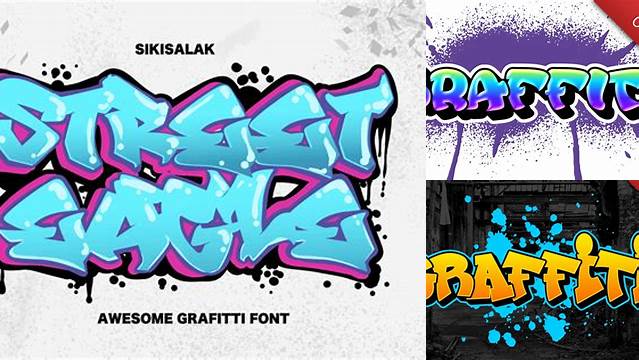
Graffiti Fonts Generator: Free Downloads & Creative Designs
Hey guys! Ever wanted to add some serious street cred to your designs? Well, you've come to the right place! Let's dive into the awesome world of graffiti fonts generator free download. We're talking about how you can snag some killer fonts to make your projects pop, whether you're a seasoned designer or just starting out. Get ready to unleash your inner artist!
1. What is a Graffiti Font Generator?
So, what exactly is a graffiti font generator? Think of it as your digital graffiti playground. These tools allow you to create text in a style that mimics the bold, edgy look of street art. The best part? Many of these generators offer graffiti fonts generator free download options, meaning you can experiment without breaking the bank. You can typically customize the font style, size, color, and even add effects like shadows and outlines to make your text truly stand out. The real magic of using a graffiti font generator lies in its ability to transform ordinary text into something visually striking and attention-grabbing. Imagine turning a simple headline into a vibrant piece of art, instantly capturing the essence of urban creativity. Whether you're designing a poster, a logo, or just want to spice up your social media graphics, these generators provide a quick and easy way to achieve that authentic graffiti look. The appeal extends beyond just aesthetics; it’s about the attitude and energy that graffiti fonts bring to a design, making it feel more dynamic and rebellious. For those who love the expressive nature of street art, having access to a graffiti font generator is like having a virtual can of spray paint, ready to make a bold statement with every word.
2. Benefits of Using Graffiti Fonts
Why should you even bother with graffiti fonts? Well, they're not just cool to look at. They bring a raw, urban edge to your designs. Graffiti fonts are fantastic for grabbing attention, conveying a sense of rebellion, and adding a unique flair to any project. Imagine using a bold graffiti font on a poster for a music event – it instantly sets the tone and attracts the right crowd. Or think about incorporating a graffiti-style logo for a skateboarding brand; it perfectly aligns with the brand's identity and vibe. One of the biggest benefits is their versatility. While they’re often associated with urban and youth culture, graffiti fonts can be used in a wide range of contexts. They can add a touch of edginess to a tech startup's branding or bring a playful twist to a children’s book cover. Plus, with the availability of graffiti fonts generator free download options, it’s easier than ever to experiment and find the perfect font for your specific needs. They help in creating visuals that are memorable and stand out in a crowded digital landscape. Whether you're working on a website, a presentation, or a social media campaign, the right graffiti font can make all the difference in making your message pop and resonate with your audience. Ultimately, the use of graffiti fonts is about making a statement and expressing a unique point of view in a visually compelling way.
3. Where to Find Free Graffiti Fonts
4. Popular Styles of Graffiti Fonts
Graffiti fonts come in all shapes and sizes, just like the real thing! You've got your classic bubble letters, wildstyle fonts (super intricate and almost illegible!), stencil fonts, and more. Each style brings a different vibe to your designs. Bubble letters are often seen as playful and approachable, making them great for more lighthearted projects. Wildstyle fonts, on the other hand, are the epitome of graffiti culture – complex, dynamic, and perfect for making a bold statement. Stencil fonts offer a more structured and industrial feel, often used to convey a sense of urgency or authenticity. Understanding these different styles can help you choose the right font for your project, ensuring it aligns with the message and tone you want to convey. For example, if you're designing a flyer for an underground music event, a wildstyle font might be the perfect choice to capture the energy and raw spirit of the scene. In contrast, if you're creating a logo for a street art collective, a stencil font might better reflect the group's roots and commitment to the craft. The beauty of the graffiti font world is its diversity and the freedom it offers to experiment. Whether you’re drawn to the rounded forms of bubble letters or the sharp edges of stencil fonts, there’s a style out there to match your creative vision and enhance your designs.
5. How to Use Graffiti Fonts Effectively
Using graffiti fonts effectively is key to making your designs shine. Don't just slap them on everything! Think about readability, contrast, and the overall message you're trying to convey. Graffiti fonts can be quite bold and attention-grabbing, so it's important to use them sparingly and strategically. Consider pairing them with simpler, more legible fonts for body text to ensure your message doesn't get lost in the visual noise. Contrast is another crucial element – make sure your graffiti font stands out against the background, but also complements the other design elements. For example, a vibrant, colorful graffiti font might look fantastic against a dark, solid background, creating a striking visual impact. It’s also essential to think about the context and target audience. A graffiti font might be perfect for a youth-oriented campaign or an urban-themed project, but it might not be the best choice for a more formal or corporate setting. The key is to use graffiti fonts in a way that enhances your design and effectively communicates your message. Experiment with different font sizes, colors, and effects to see what works best for your project. Don't be afraid to break the rules and try something new, but always keep readability and clarity in mind. By carefully considering these factors, you can harness the power of graffiti fonts to create designs that are both visually stunning and highly effective.
6. Best Graffiti Font Generators Online
Ready to get your hands dirty (digitally, of course)? There are some fantastic graffiti font generators available online. Sites like Font Graffiti, GraffWriter, and Text2SpeechMaker offer user-friendly interfaces where you can type in your text, choose a font style, and generate a graffiti-style image in seconds. These tools are perfect for quick mockups, social media graphics, or just playing around with different designs. What makes these online generators so appealing is their accessibility and ease of use. You don't need to be a design expert to create eye-catching visuals. Simply input your text, select from a range of font options, and tweak the colors and effects to your liking. Many of these platforms also offer additional customization features, such as adding background textures, adjusting the size and rotation of the text, and even incorporating hand-drawn elements. This level of flexibility allows you to create truly unique and personalized designs that reflect your individual style and vision. For those who are new to graffiti fonts, these online generators provide a great starting point for exploration and experimentation. They allow you to quickly visualize how different fonts will look in various contexts, helping you to make informed decisions about your design choices. Whether you're working on a personal project or a professional campaign, these tools can save you time and effort while still delivering impressive results. By leveraging the power of these online resources, you can bring your graffiti-inspired ideas to life with ease and creativity.
7. Free Graffiti Font Downloads for Commercial Use
Finding free graffiti font downloads for commercial use can sometimes feel like searching for a unicorn, but they do exist! Websites that offer free fonts often have sections specifically for fonts that are licensed for commercial use. Just make sure to double-check the licensing terms before you use them in a project that you or your client will be profiting from. The key is to look for fonts that are released under licenses like the Creative Commons or Open Font License, which typically allow for commercial use with certain conditions. This often means you can use the font in logos, branding materials, marketing campaigns, and other commercial projects without having to pay any royalties or fees. However, it's crucial to read the fine print and understand the specific terms of the license. Some fonts might require attribution, meaning you need to credit the font's creator in your design or documentation. Others might have restrictions on modifying or redistributing the font. Taking the time to verify the licensing terms can save you from potential legal issues down the road. Many designers and foundries offer free graffiti font downloads for commercial use as a way to promote their work and build their portfolios. By supporting these creators and respecting their licensing terms, you can access a wide range of high-quality fonts for your projects. Keep an eye on design blogs, forums, and social media groups, as these are often great places to discover new and exciting free fonts for commercial use. By building a collection of commercially licensed graffiti fonts, you can add a unique and edgy touch to your designs without worrying about copyright infringement.
8. Graffiti Fonts for Photoshop
If you're a Photoshop wizard, you'll be happy to know that many graffiti fonts are compatible with Photoshop. Simply download the font file, install it on your computer, and it should appear in your font list within Photoshop. This allows you to incorporate graffiti fonts into your designs, whether you're creating posters, flyers, or digital art. Using graffiti fonts in Photoshop opens up a world of creative possibilities. You can combine them with other design elements, apply layer styles and effects, and create stunning visuals that capture the essence of street art. One of the advantages of using Photoshop is the ability to further customize your fonts. You can add shadows, outlines, textures, and other effects to enhance the graffiti look and feel. Experiment with different blending modes and opacity settings to achieve unique and dynamic results. Photoshop also allows you to distort and transform your fonts, giving them a more organic and hand-drawn appearance. You can use tools like the Warp and Puppet Warp to create custom shapes and curves, making your graffiti text truly one-of-a-kind. When working with graffiti fonts for Photoshop, it’s important to consider the overall composition and balance of your design. Graffiti fonts can be quite bold and attention-grabbing, so it’s essential to use them strategically and pair them with other elements that complement their style. Think about the color palette, the background textures, and the placement of your text to create a visually appealing and cohesive design. By mastering the art of using graffiti fonts in Photoshop, you can add a touch of urban flair to your projects and create designs that truly stand out.
9. Graffiti Fonts for Illustrator
Just like Photoshop, Illustrator is another powerful tool for working with graffiti fonts. Illustrator's vector-based nature means you can scale your fonts without losing quality, making it ideal for creating logos, illustrations, and other graphics that need to be resized. Using graffiti fonts in Illustrator allows you to create sharp, clean designs that can be used in a variety of formats, from print to web. One of the key advantages of Illustrator is its ability to work with vector graphics. This means that your fonts will always look crisp and clear, no matter how large or small they are scaled. This is particularly important for logos and branding materials, where consistency and quality are essential. Illustrator also offers a wide range of tools for customizing your fonts. You can adjust the letter spacing, kerning, and leading to fine-tune the appearance of your text. You can also use the Pathfinder tool to combine and modify shapes, creating unique and custom graffiti lettering. Another powerful feature of Illustrator is its ability to convert text to outlines. This allows you to manipulate the individual letters as vector shapes, giving you complete control over their appearance. You can add strokes, fills, gradients, and other effects to create stunning and intricate graffiti designs. When working with graffiti fonts for Illustrator, it’s important to consider the overall style and tone of your design. Illustrator's precision and control make it ideal for creating clean and professional-looking graffiti designs that can be used in a variety of contexts. By mastering the art of using graffiti fonts in Illustrator, you can add a touch of urban flair to your projects while maintaining a high level of quality and professionalism.